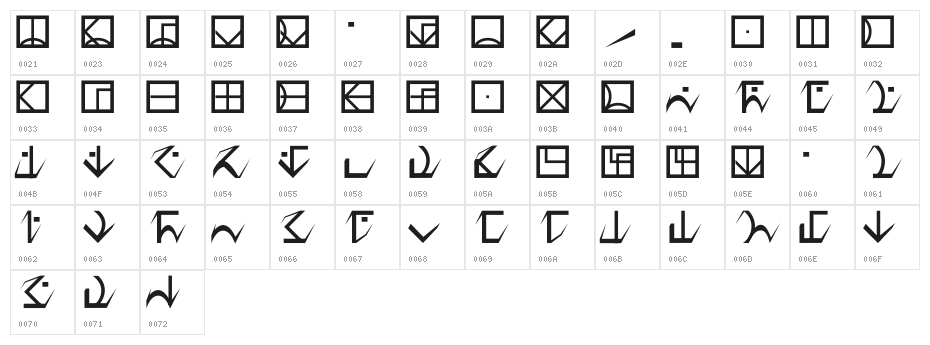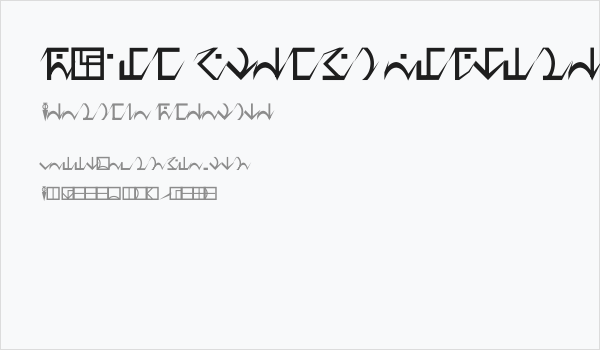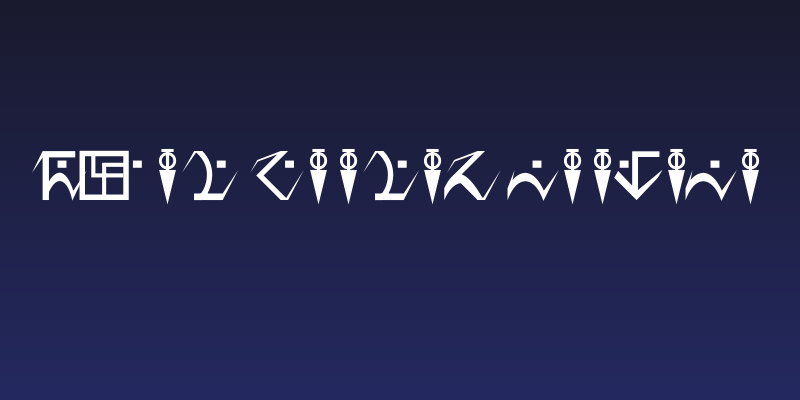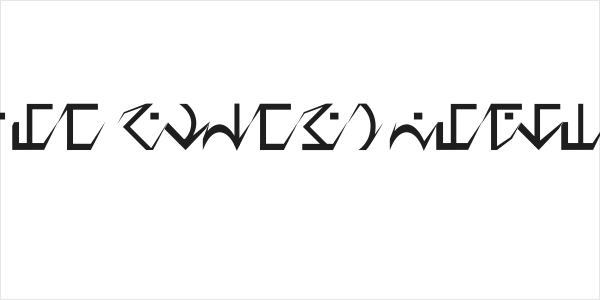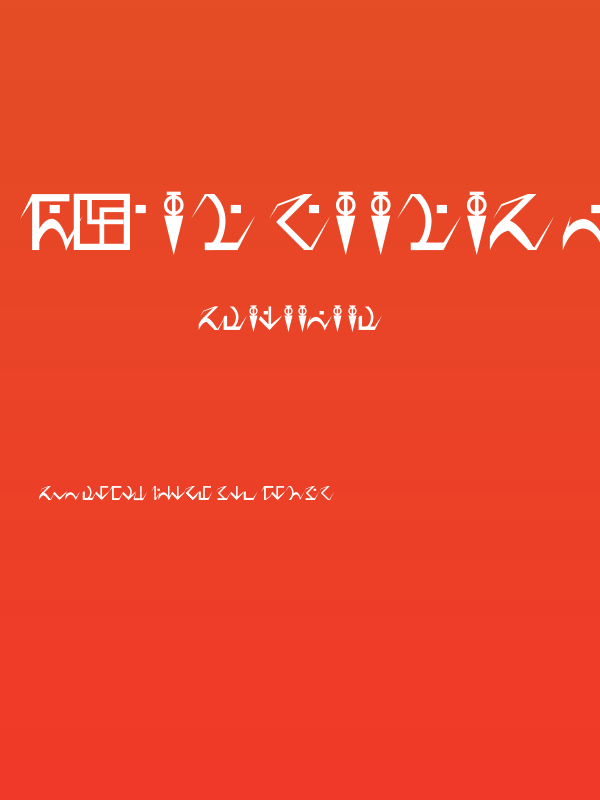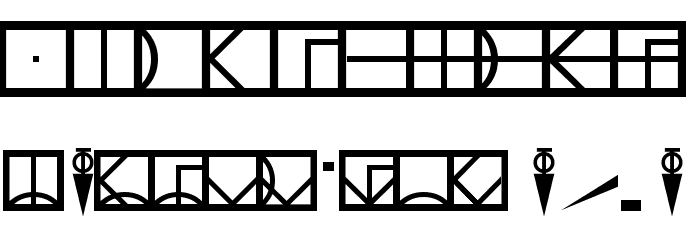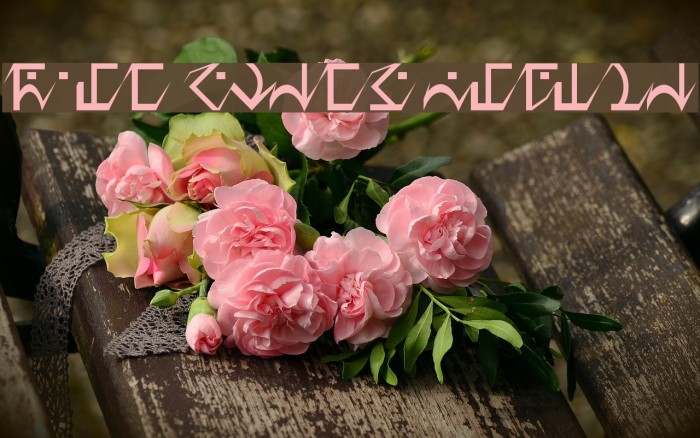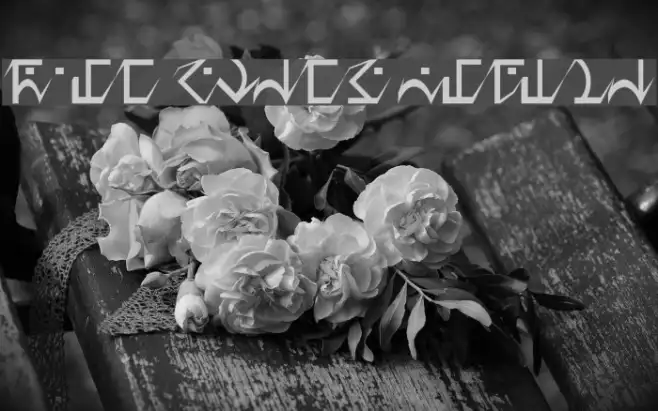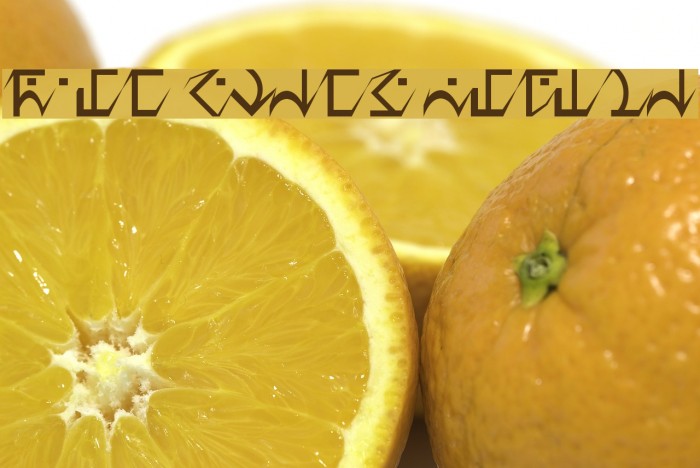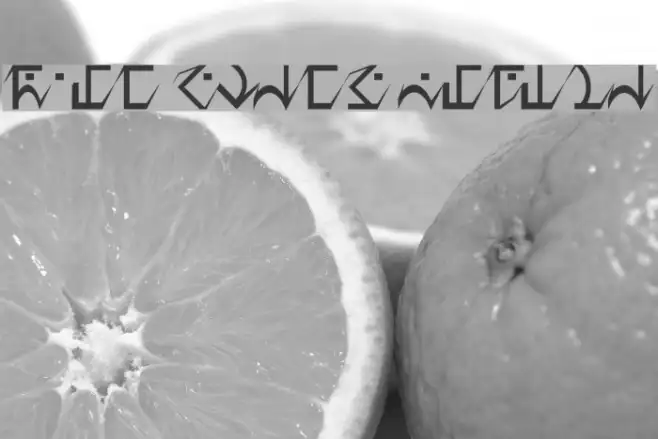
D'ni Script Angular Font
D'ni Script Angular Description
This font features a highly stylized and angular design, characterized by sharp, geometric shapes and intricate patterns. Each character is crafted with a unique combination of lines and angles, creating a futuristic and abstract appearance. The font's distinct style is reminiscent of ancient scripts or alien languages, making it ideal for projects that require a mysterious or otherworldly aesthetic. The bold strokes and high contrast between thick and thin lines add to its dramatic visual impact. The characters are tightly spaced, enhancing the compact and cohesive look of the text.
| Overall Style | Futuristic, Abstract |
| Proposed Projects | Ideal for sci-fi themed designs, video game interfaces, movie posters, or any creative project seeking a unique and mysterious look. |